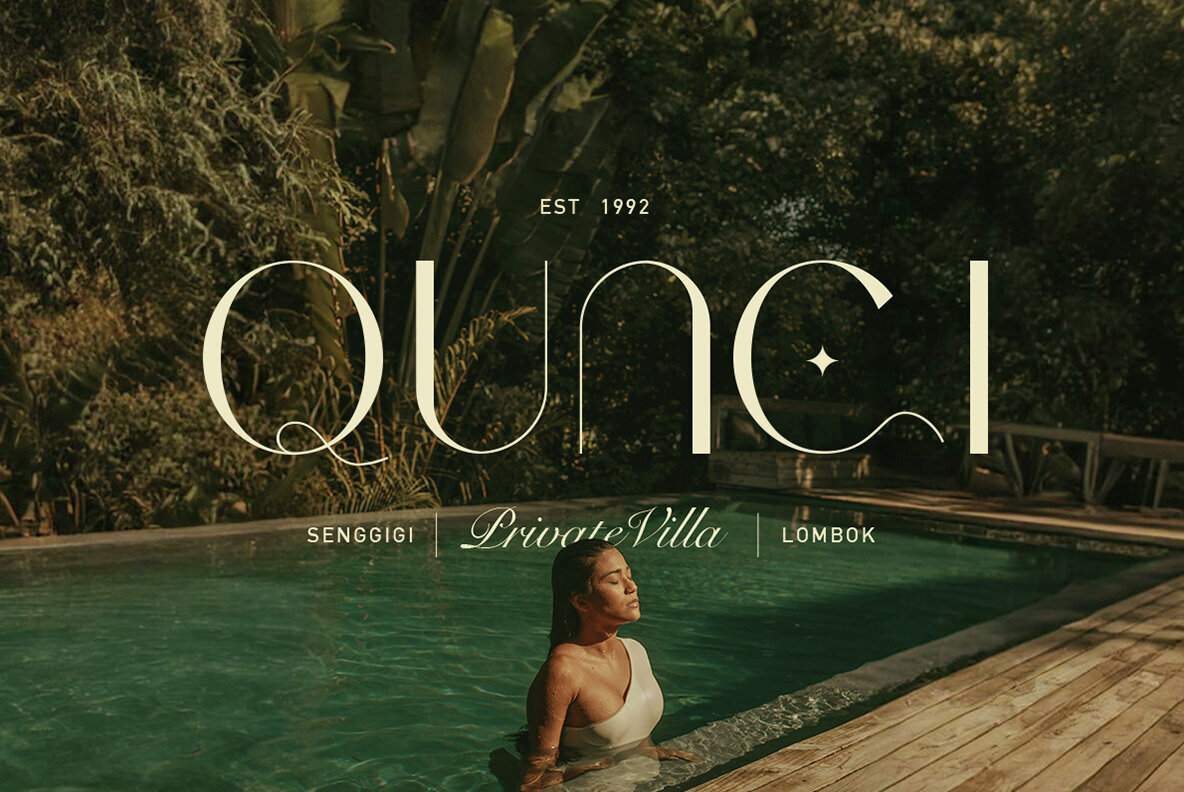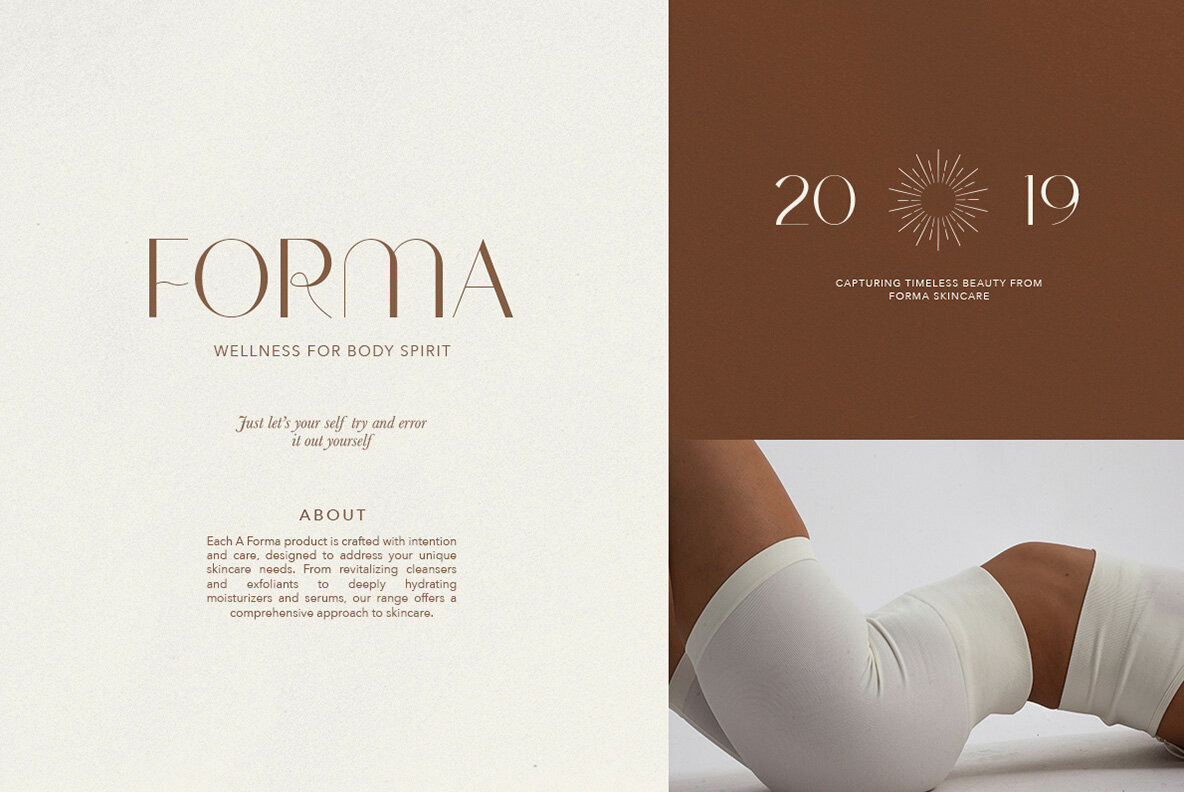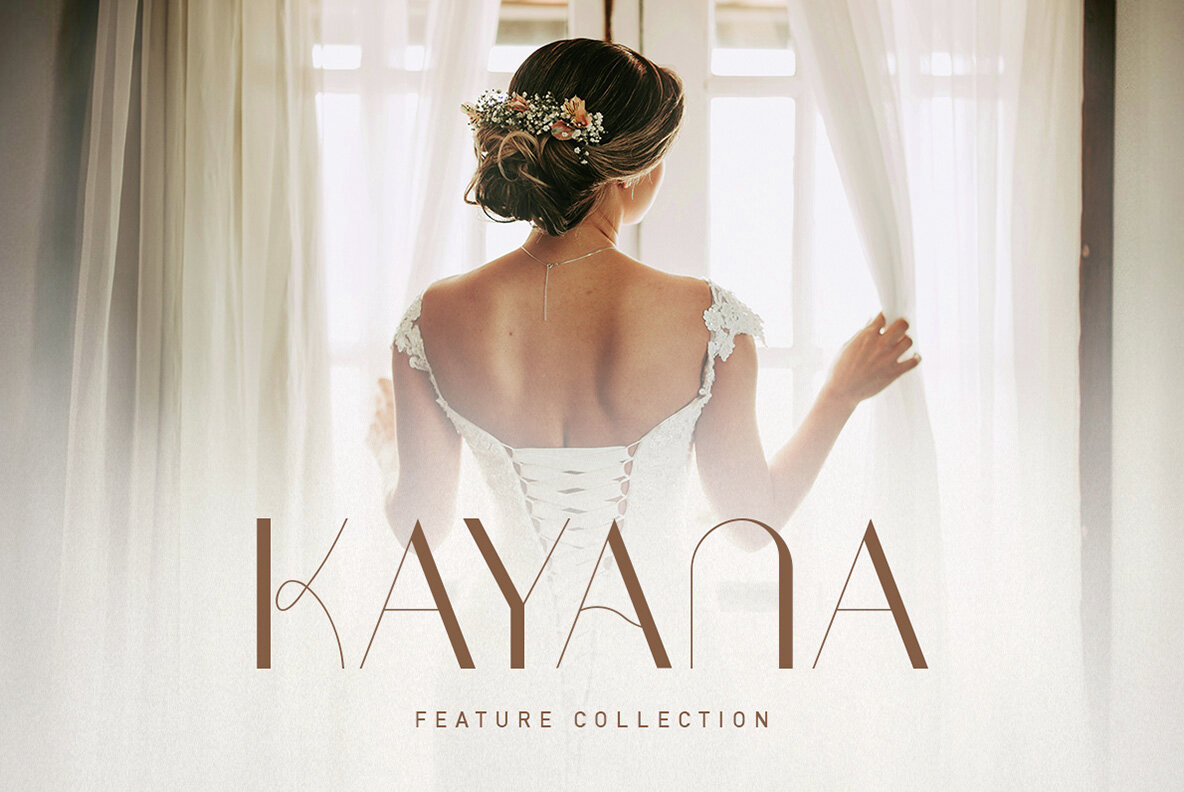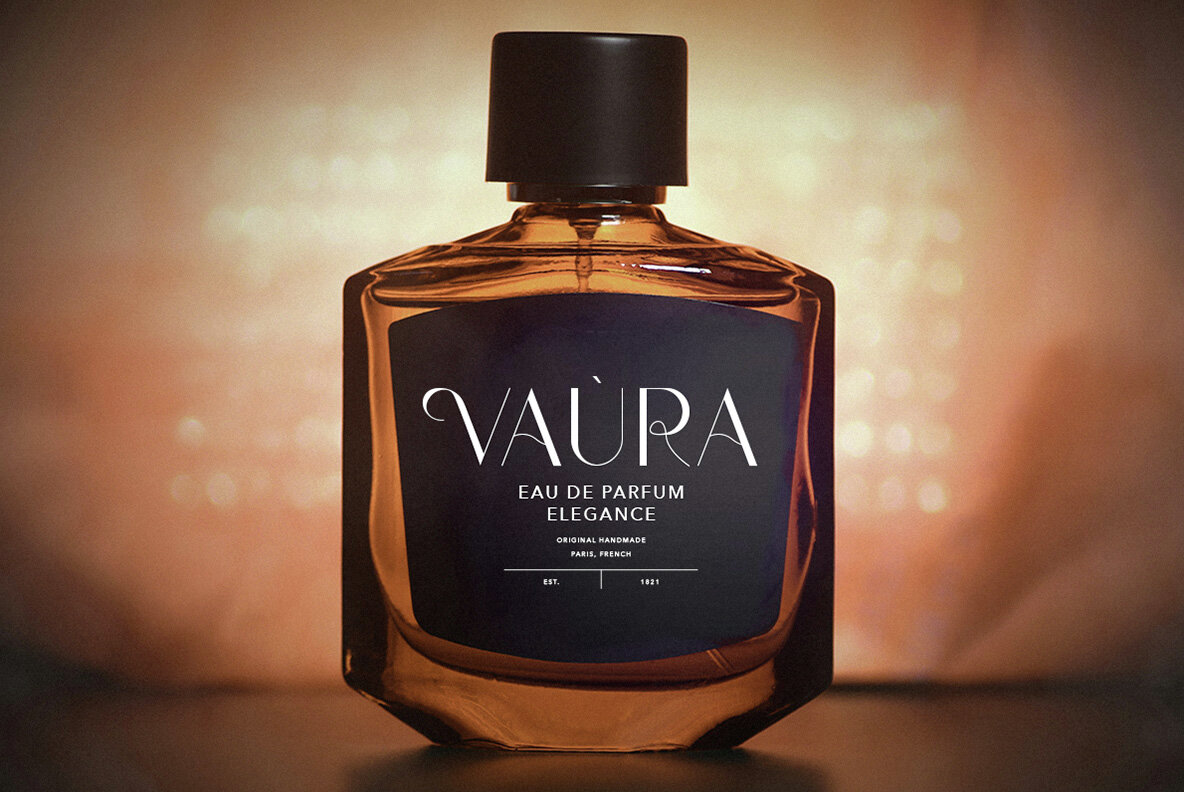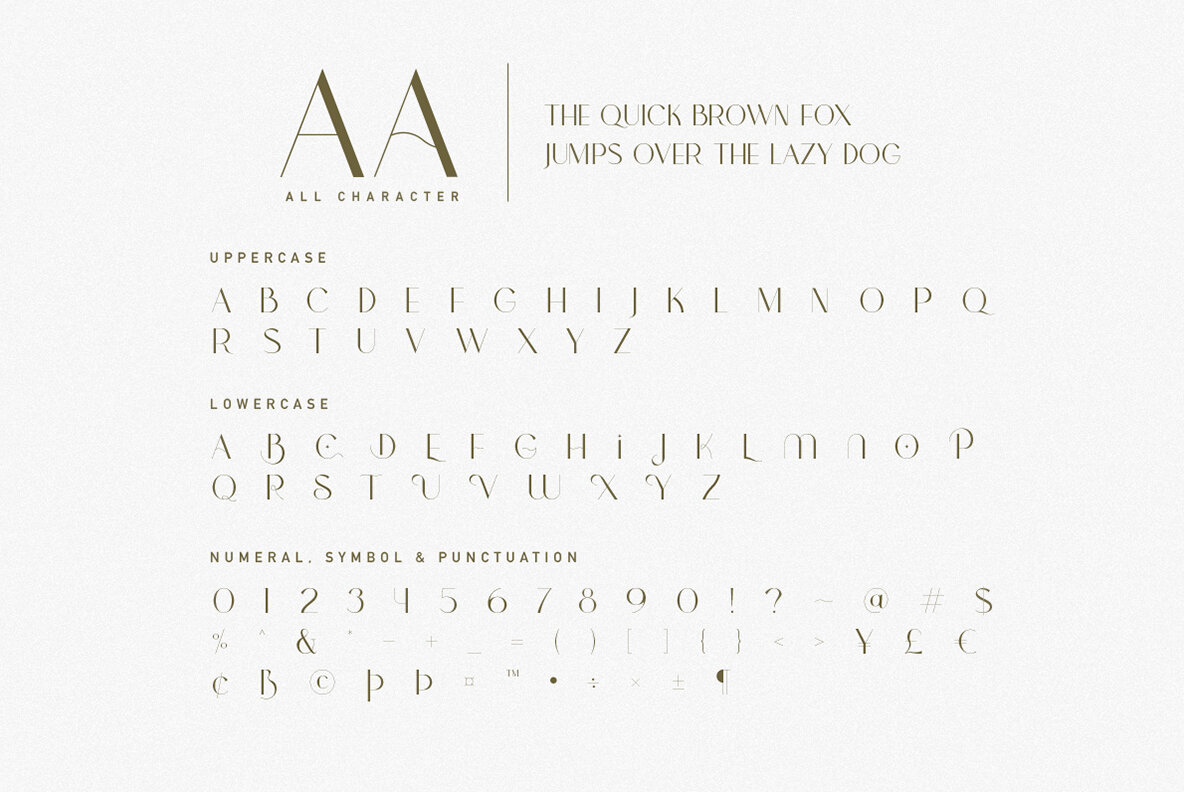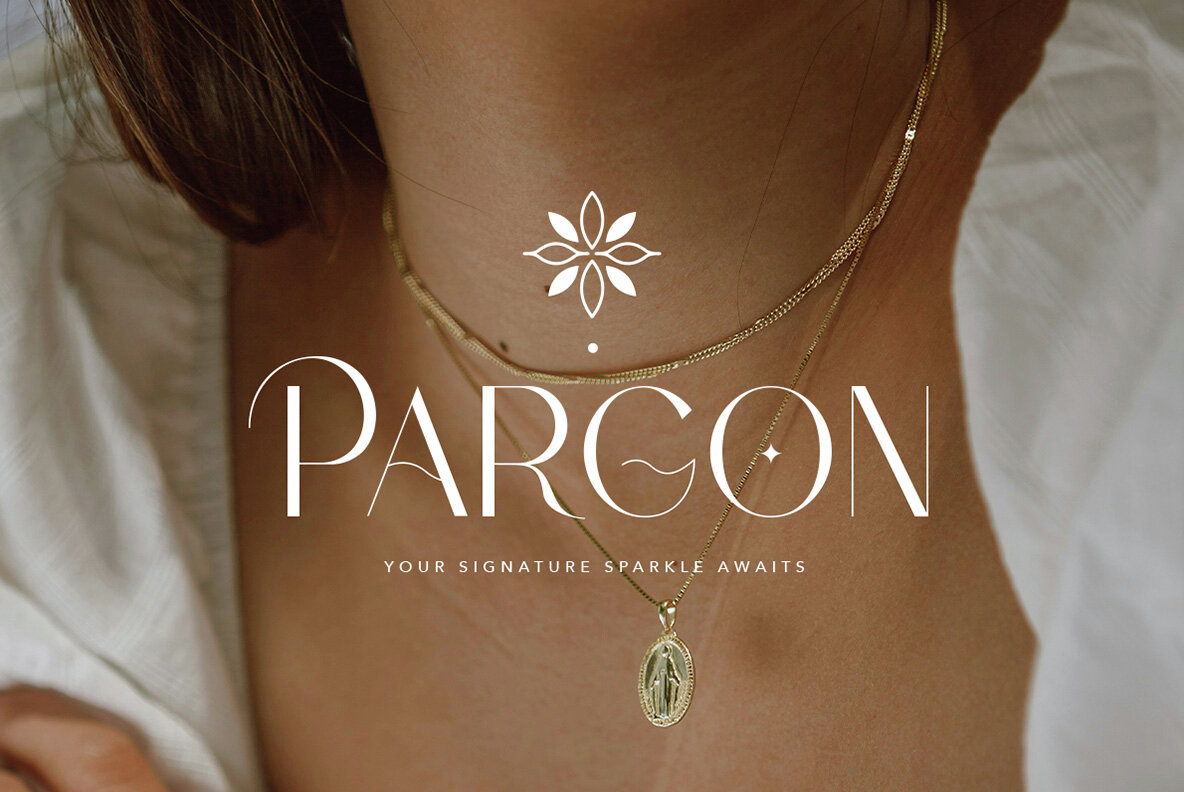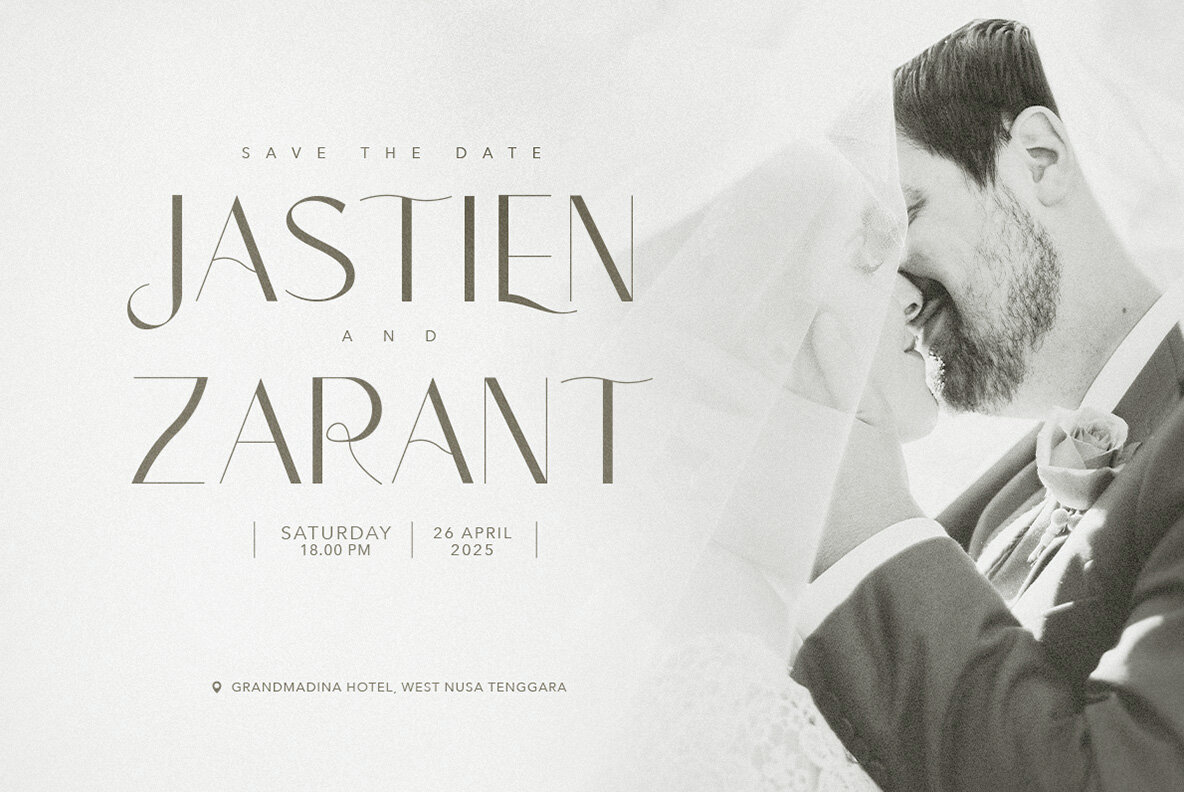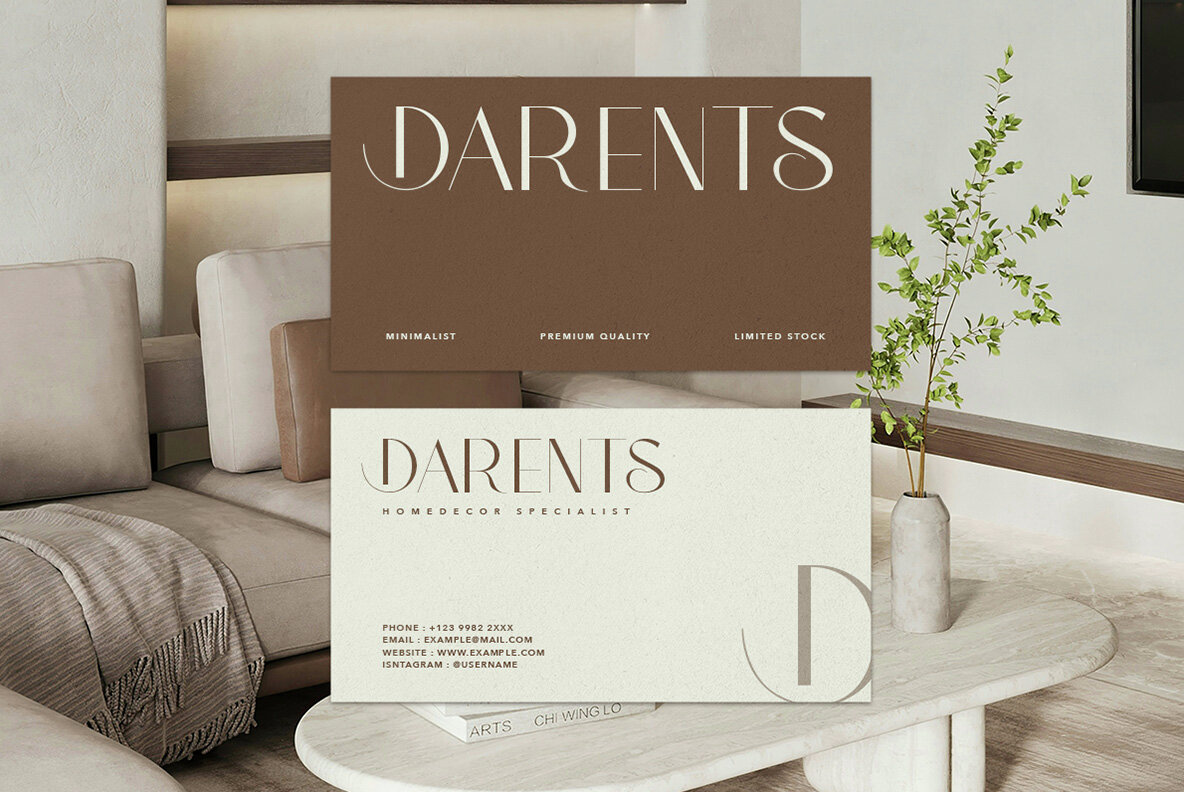
Sherica Font
Sherica Regular
Discover the allure of Sherica, a unique font that embodies sleek elegance and timeless class. Perfect for branding in the realms of fashion, luxury villas, and chic boutiques, Sherica brings a touch of sophistication to every project. Its refined lines and graceful curves are designed to enhance the beauty of feminine and high-end designs, making it an ideal choice for anyone seeking a font that exudes elegance and style. Whether for logos, invitations, or promotional materials, Sherica elevates your brand with its stylish and polished aesthetic.